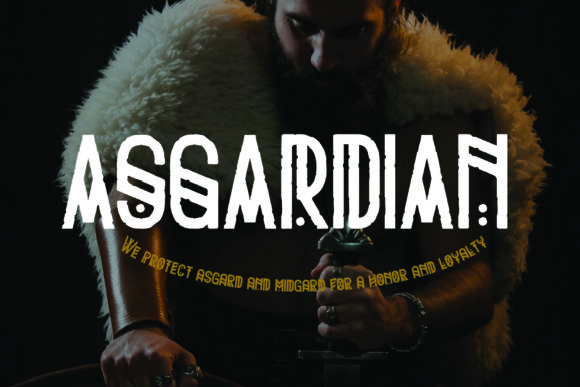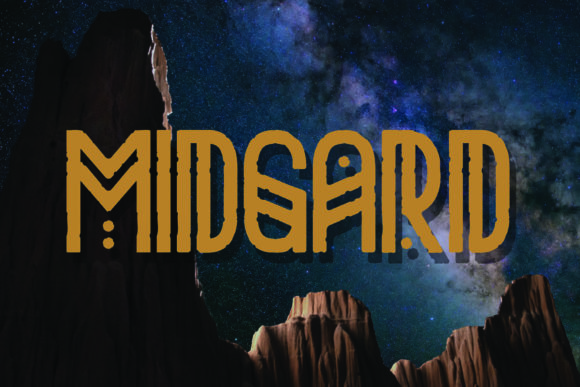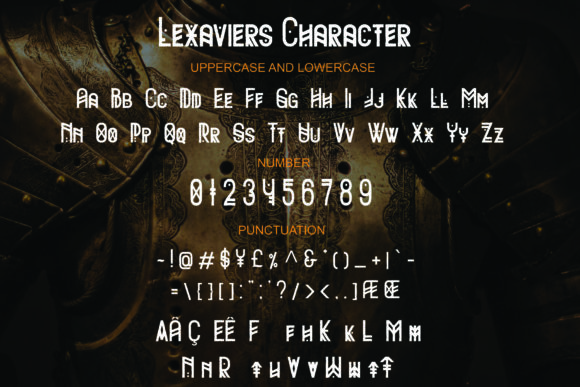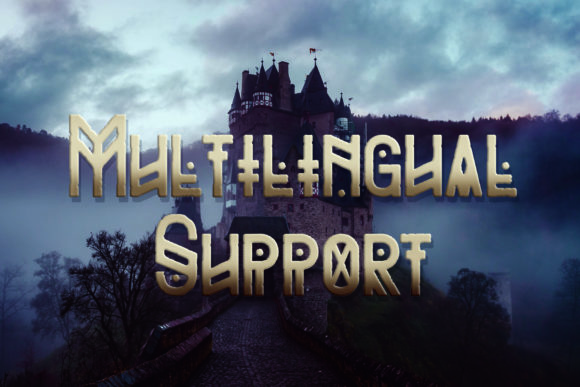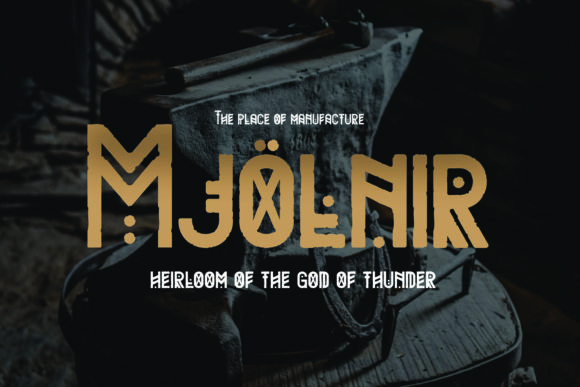
Introduction to Lexaviers Font
Lexaviers is a cool and futuristic brushed display font.
This font is ideal for writing web designs, business cards, or pretty much anything else that requires a unique touch .
Key Features of Lexaviers Font
Why Choose Lexaviers Font?